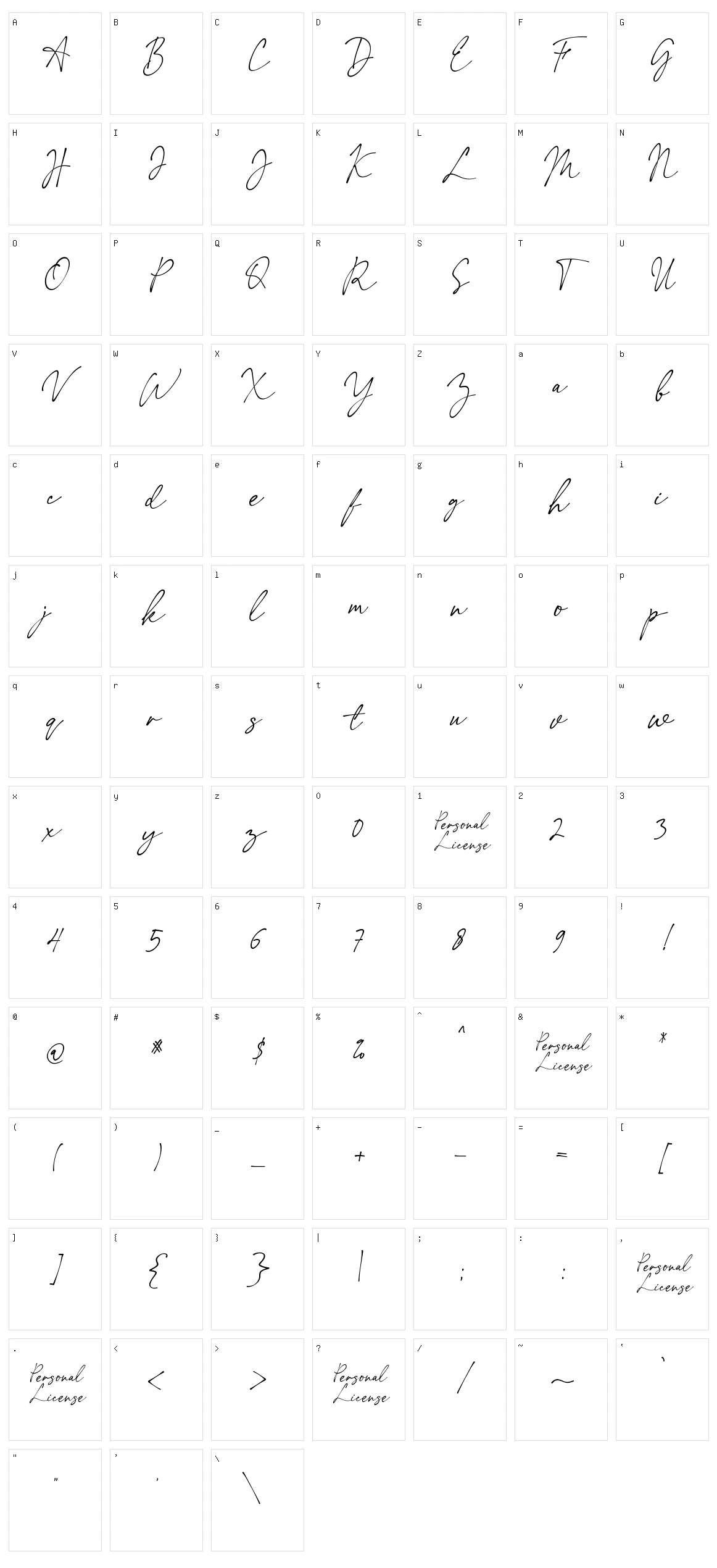
The free font The Expressions is carefully designed by Java Pep, showcasing a thoughtful balance of creativity and usability and falls under the Script font style. When you download the ZIP file, it contains only 95.81 KB of font files, making it lightweight and quick to download. Please review the license details below to understand permitted usage and distribution rights. If license information is not available, we recommend using this font for personal projects only or contacting the author directly for commercial usage permissions.